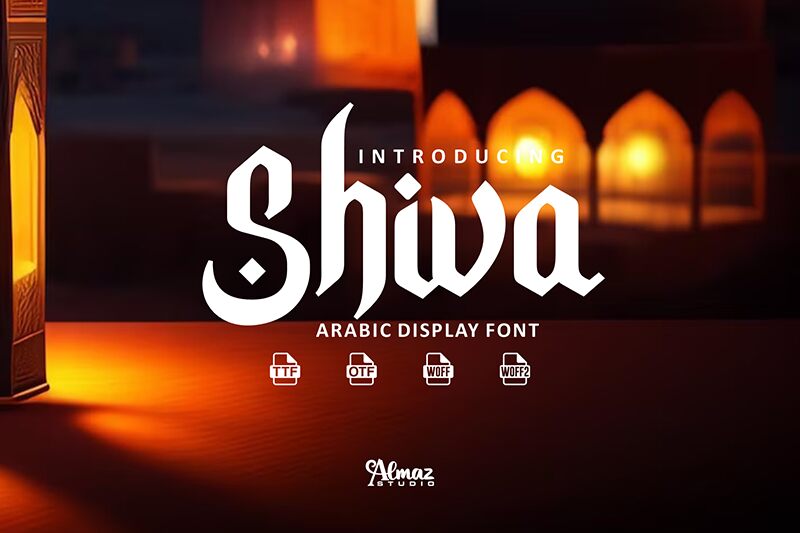
Shiva font by Almaz Studio is a unique decorative free font inspired by Arabic calligraphy and culture. It delivers a strong visual impact that adds a touch of cultural resonance to the modernity of its glyphs. Designed mainly for thematic displays, it can make your headlines, posters, or signage stand out from the crowd.
Beyond the mentioned applications, consider using Shiva in branding projects. The font is also an interesting choice for conceptual designs related to events, invitations, book covers, and tote bags, among others. Its ornamental character will find good use in projects related to the Arab world and especially the Levant.